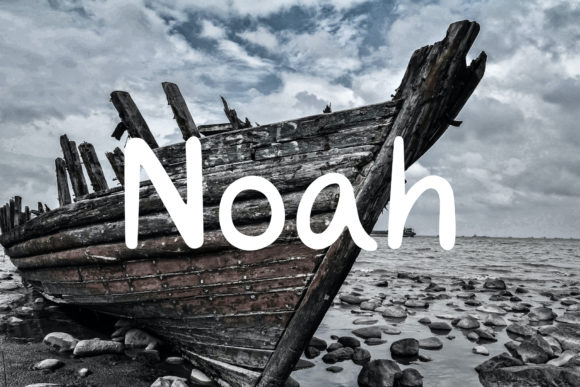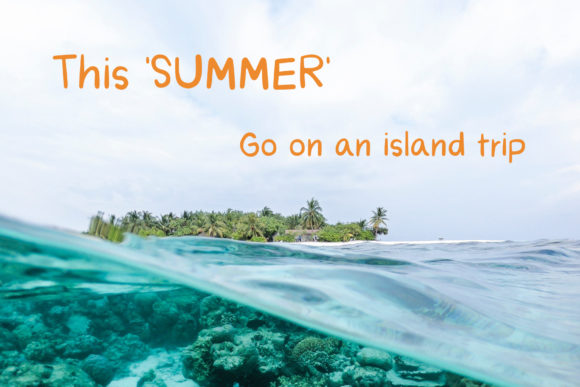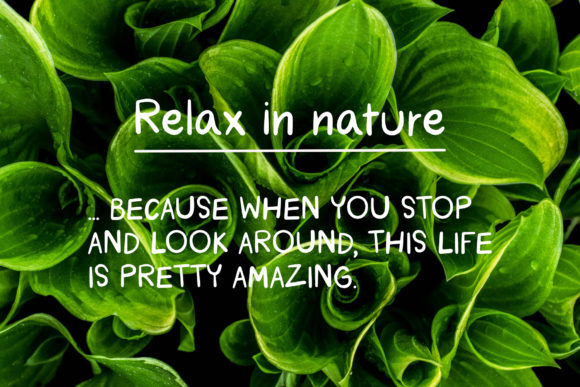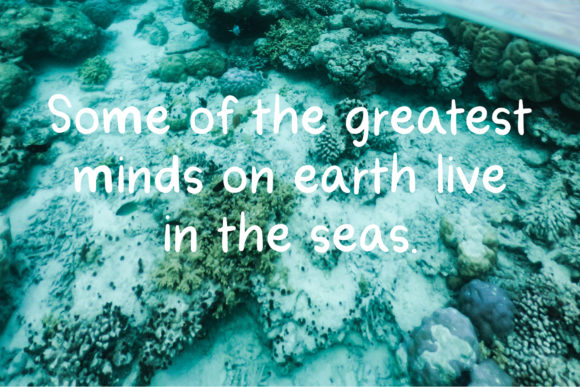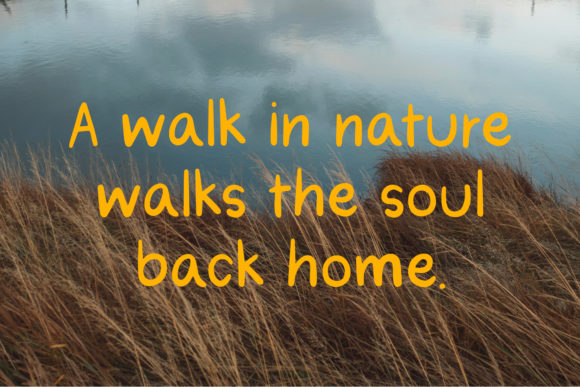
Noah Font
About Noah Font
Noah is a casual and friendly handwritten font. Clean and a little bit quirky, this font is the perfect fit for all of your logos, branding, social media, and crafty DIY projects.